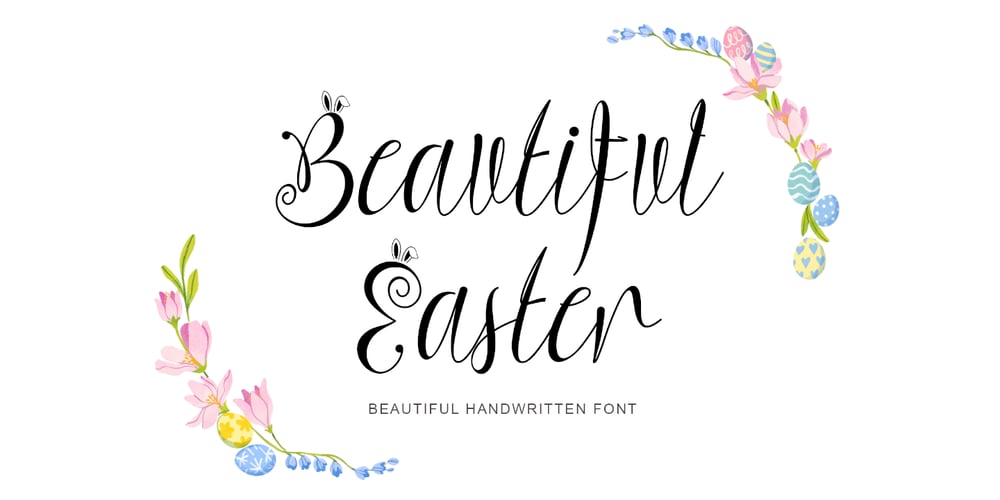
Beautiful Easter Font Family was designed by Isroni Yoga Prasetya and published by Yoga Letter. Beautiful Easter contains 1 styles and family package options. “Beautiful Easter” is a quirky and cute handwritten font. This font is decorated with bunny ears in the uppercase. Equipped with uppercase, lowercase, numerals, punctuation, and multilingual support. It is suitable for Easter, spring, wedding moments, and others.